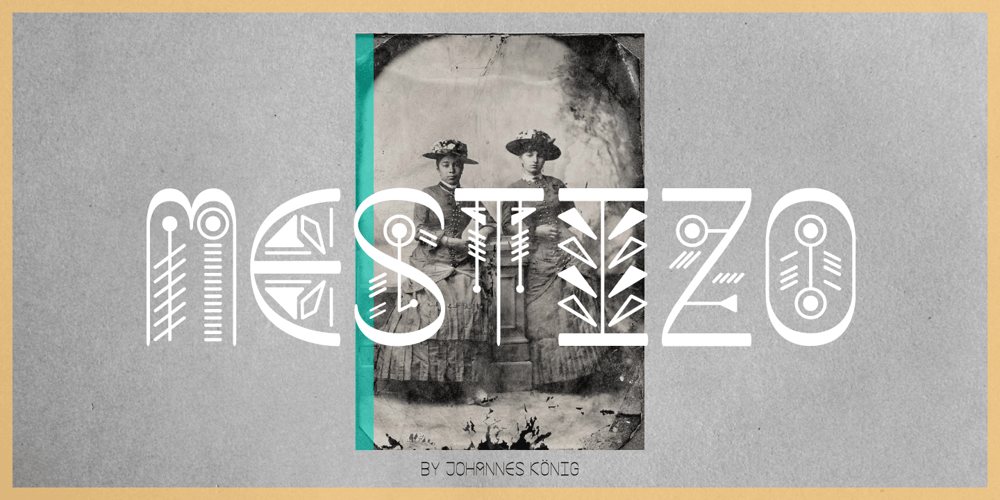
Mestizo Font Family was designed by Johannes König and published by Volcano Type. Mestizo contains 6 styles and family package options. Mestizo is a term traditionally used in Latin America and Spain for people of mixed heritage or descent. In some countries it has come to mean a mixture of European and Amerindian. The font Mestizo is based on a strict grid system – but combines it with ethnic symbolism. Six weights can be combined in various ways. Accius, Alerio & Amias display the basic geometric shapes, Balbo, Belus & Borba represent the playful icons.